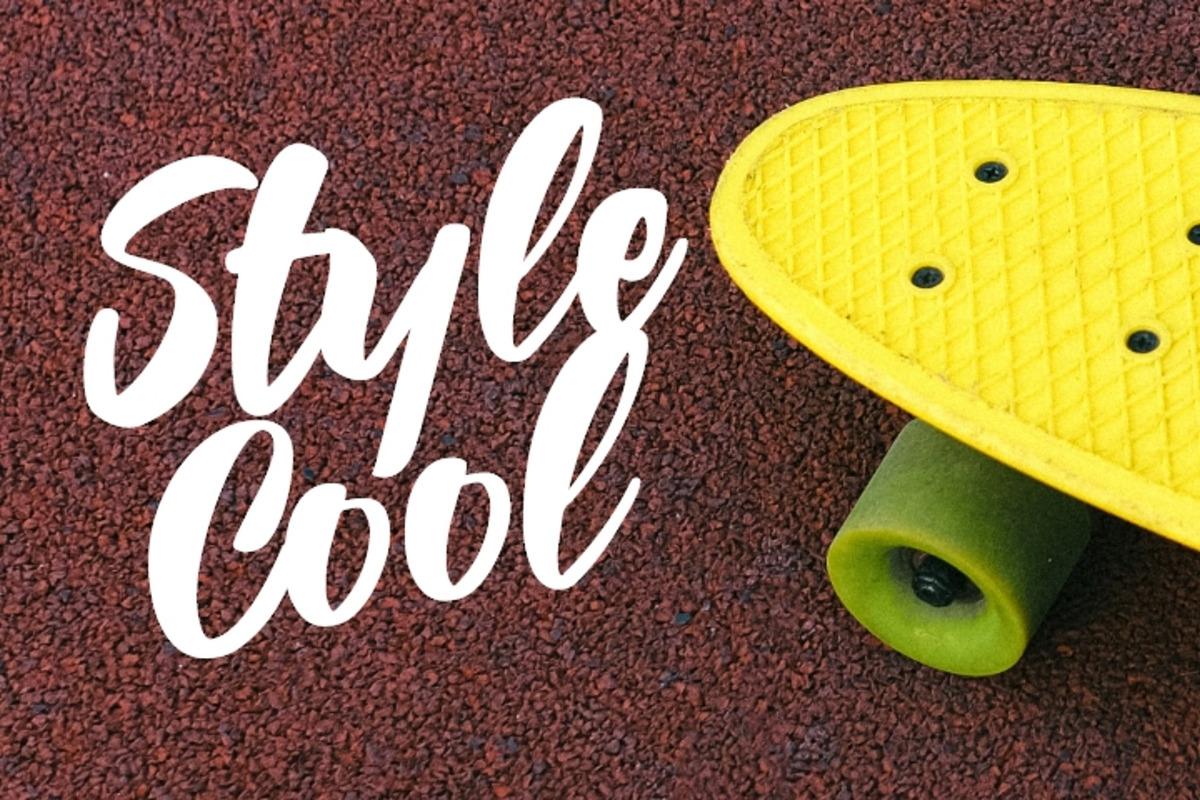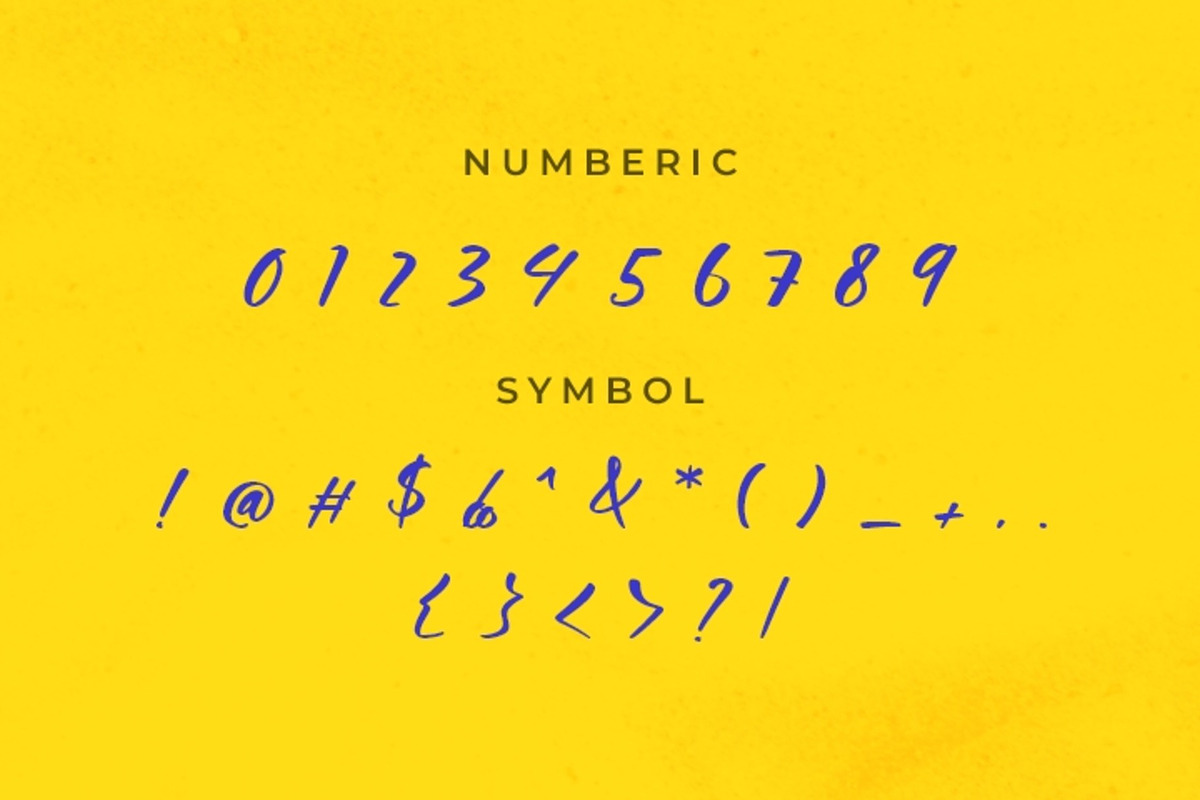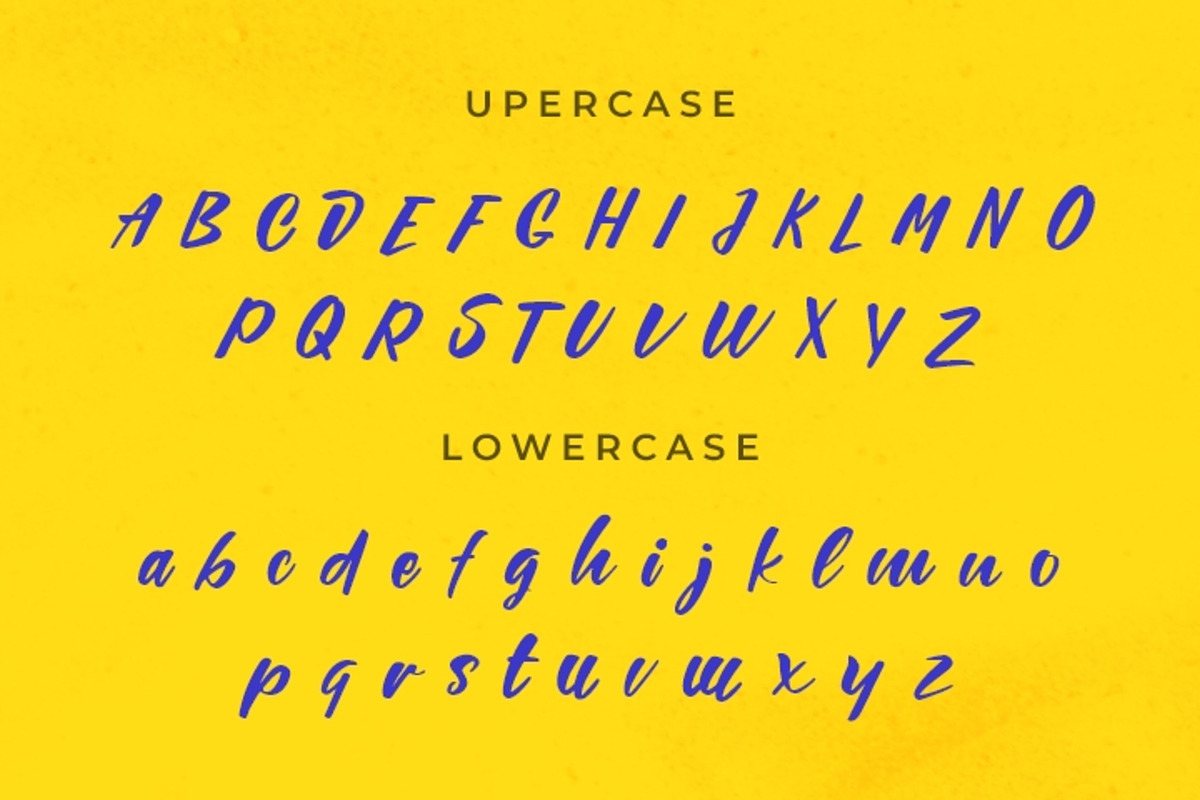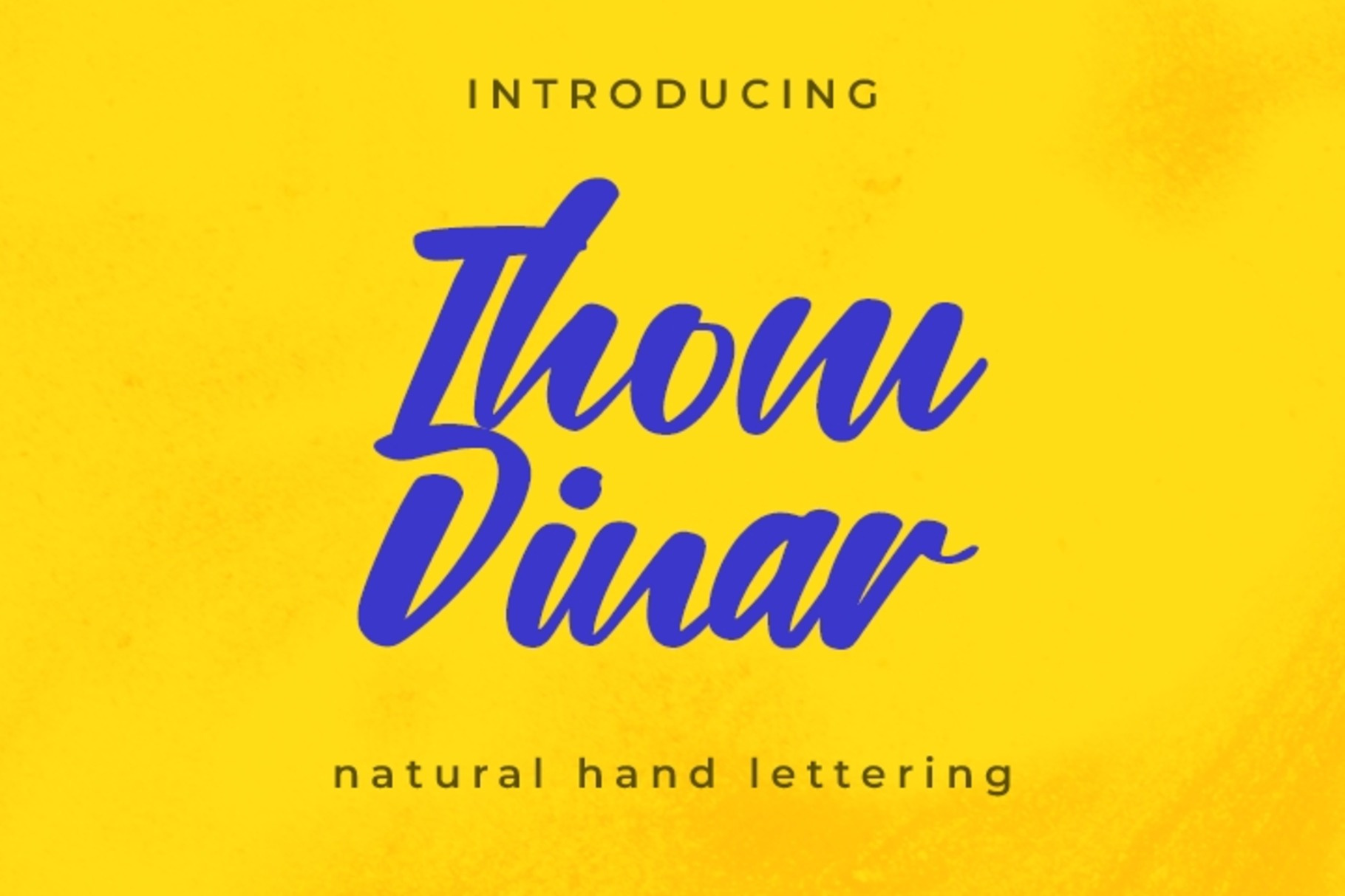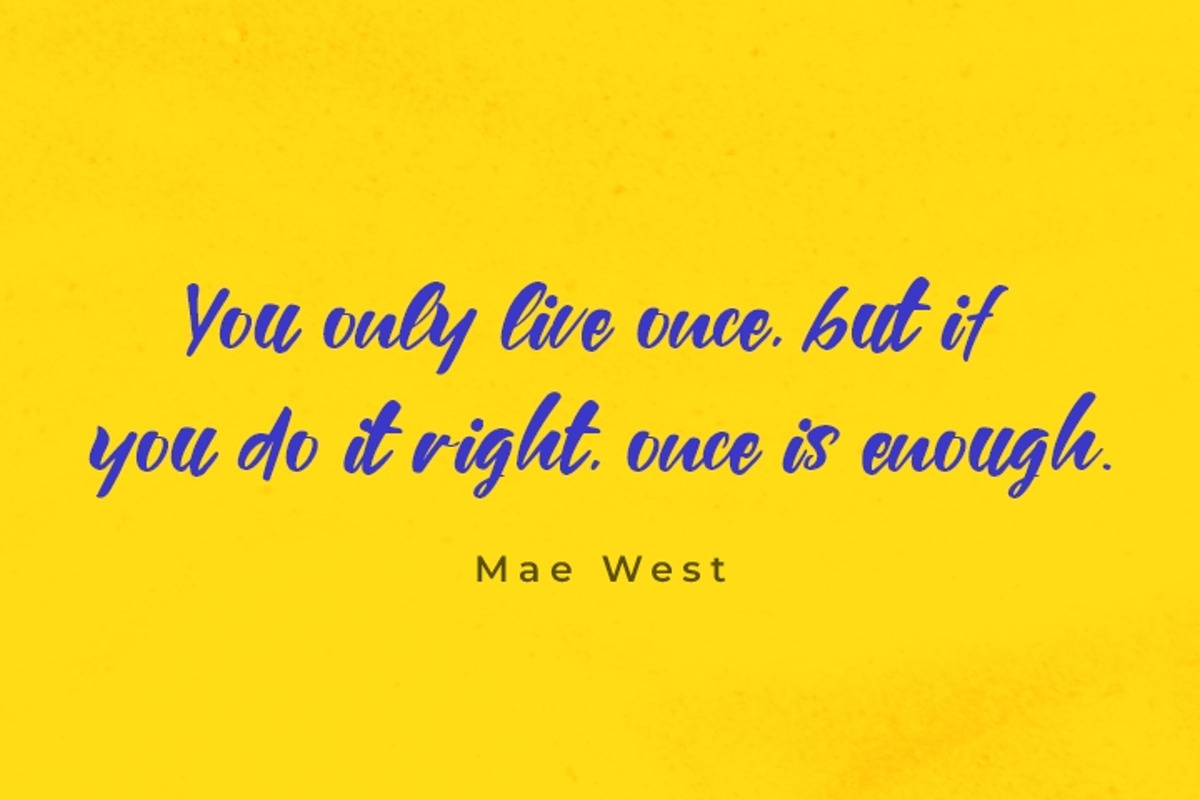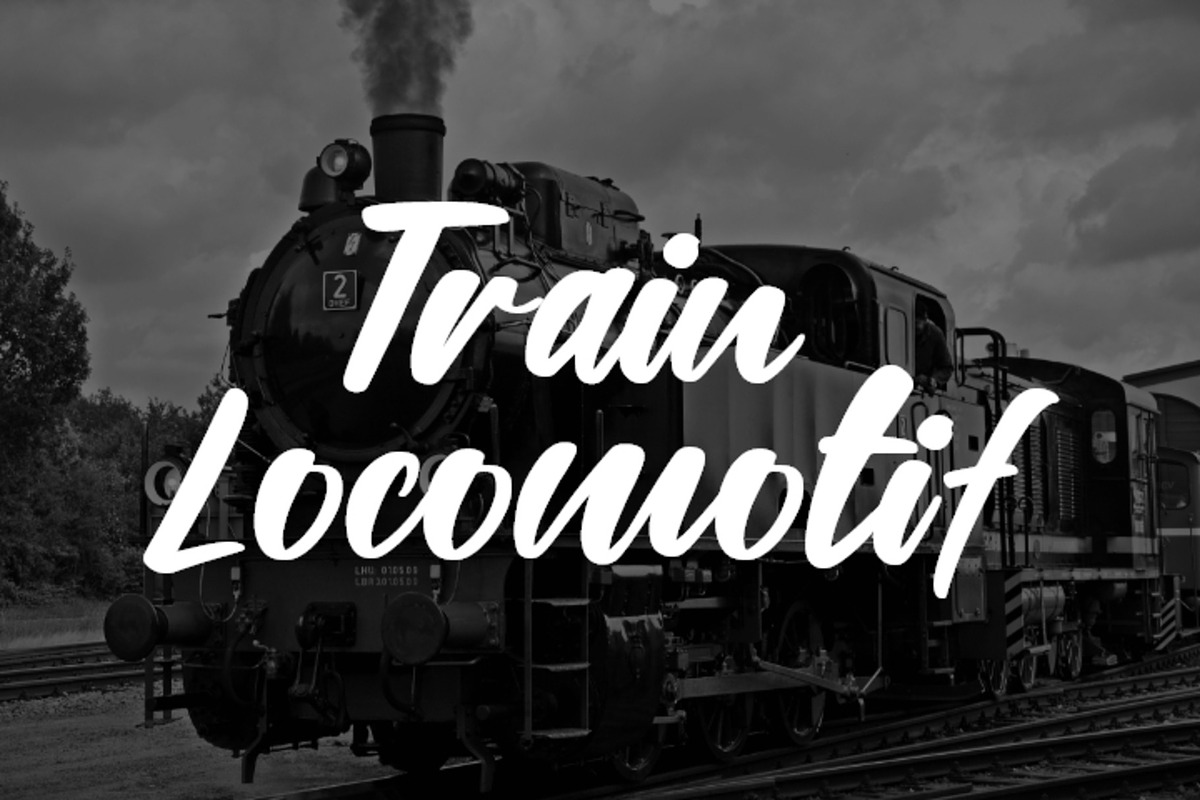
Thom Dinar: Vibrant Handwriting Font
Introducing Thom Dinar, a vibrant handwriting font that exudes energy and style. This font features dynamic curves and unique character forms, perfect for branding, logos, and more.
Vibrant Handwriting Style: Thom Dinar offers a lively and dynamic handwriting style that adds energy and vibrancy to any project.
Wide Range of Applications: Ideal for branding, logos, web design, and more. Add a touch of vibrancy to your designs with Thom Dinar.
Variety of Characters: Comes with a variety of unique character forms, adding depth and versatility to your design projects.
High Quality: Meticulously crafted to ensure high readability and beautiful aesthetics.